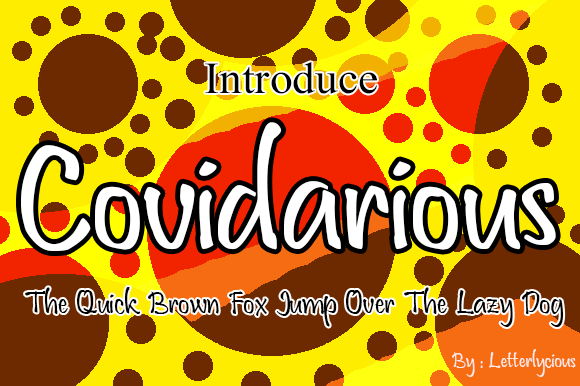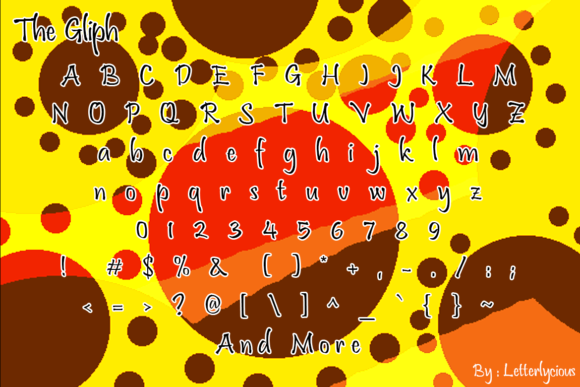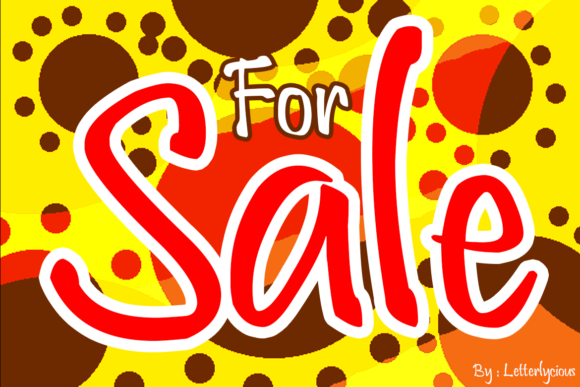
Covidarious Font
About Covidarious Font
Covidarious is a fun handwritten font.Get creative with its unique playfulness, and use it to brighten up any crafting project!